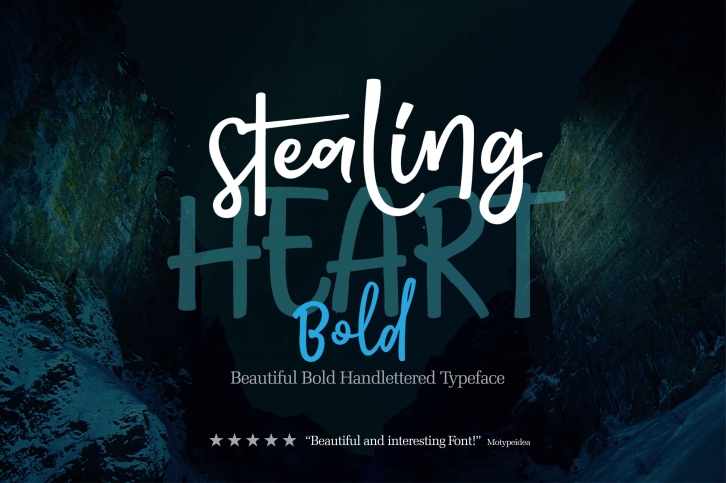
STEALING HEART BOLD is a great font that was designed by OlexStudio. Imagine the amount of combinations you can create using this font! The archive is 1.74 MB and it was released on October 17, 2017. STEALING HEART BOLD looks beautiful on wedding invitations, greeting cards, logos, posters, labels, t-shirt designs, logos, business cards and is perfect for use in ink or watercolor works, fashion, magazines, packaging and food menus, children's books and more!